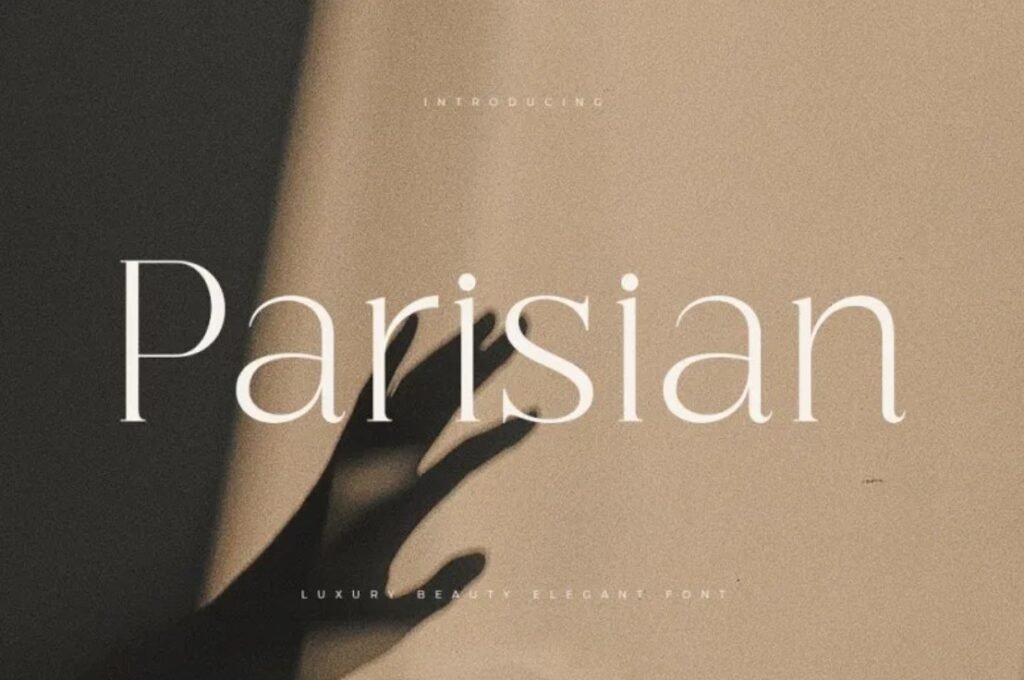
Parisian Font is precisely what you need if you are looking for something that embodies classic glamour and elegance. This Parisian decorative serif font has preserved Paris’ charm and sophistication, making it ideal for luxurious branding, wedding invites, and editorial design.
What Is Parisian Font?
The Parisian font illustrates the sophistication and style associated with the 1930s Art Deco period. It was designed by one of the most prolific American type designers, Morris Fuller Benton who was active in the 20th century, and was published by the American Type Founders (ATF) during the golden age of design which centered on smooth geometry and extravagance.
Parisian uses thin and sharp angled lines that are strikingly upright which depicts high elegance and formal characteristics. Parisian cannot be regarded as a standard business typeface since it lacks versatility; rather, it excels in promotional material where it’s intricacies can be fully displayed.
Key Features of the Parisian Font
So, what exactly makes the Parisian font so stylish and unique? Let’s take a look at its standout features:
- Tall, narrow letterforms with a vertical emphasis
- High-contrast strokes that evoke a refined, fashion-forward aesthetic
- Minimal curves and clean geometry, typical of Art Deco design
- Ideal for display use where the fine details won’t get lost
- Often used in fashion magazines, luxury logos, and upscale branding
These characteristics make it a go-to for designs that want to feel elevated, vintage, and chic—all at once.
Where to Use the Parisian Font?
Now that you know what makes the Parisian font special, let’s talk about where it truly shines. Its delicate structure and retro appeal make it a great choice for:
- Fashion and beauty logos (think perfume brands, clothing labels)
- Wedding invitations and event stationery
- Magazine headlines and editorial spreads
- Vintage-style posters and restaurant menus
- Luxury product packaging, especially cosmetics or boutique items
Final Thoughts on Parisian Font
Parisian typeface is a stunning combination of Art Deco and modern minimalism. For designers catering to high-end brands or creating a love-themed invitation, Parisian font is a typeface that can be used gracefully. Its charming yet classy look will greatly enhance any design project. At y2kfonts, we recommend Parisian font for anyone looking to add a touch of timeless elegance to their creative work.
Pro Tip: For maximum Parisian font impact, pair it with a clean layout, optimal negative space, and high-quality imagery.